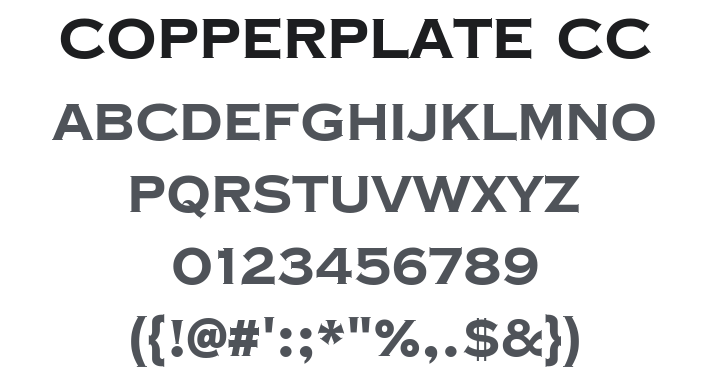
Copperplate CC Font Family
by indestructible type
Copperplate CC Font Family
About Copperplate CC
A Historical revival of Copperplate Gothic by indestructible type*